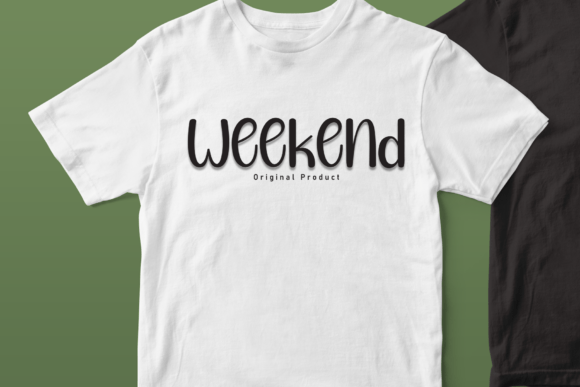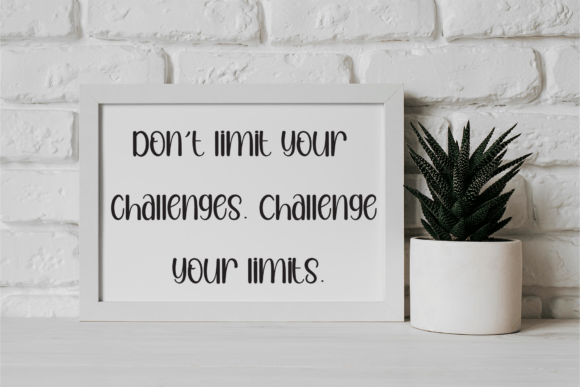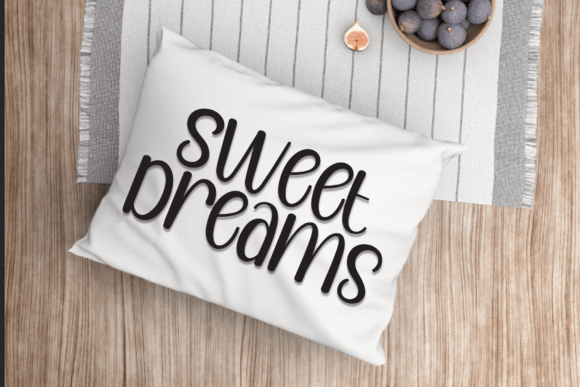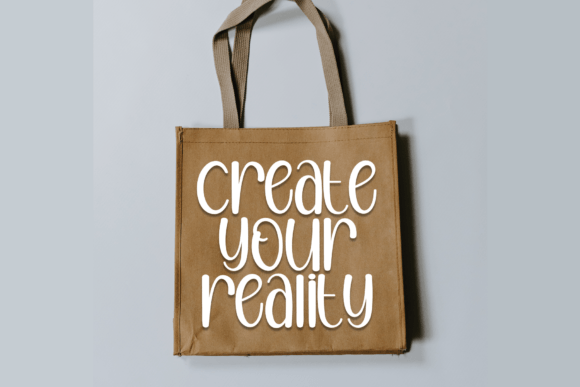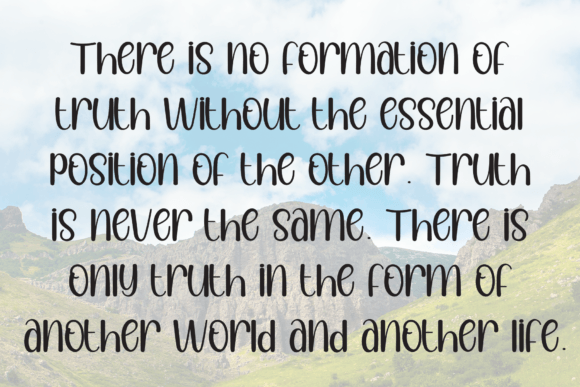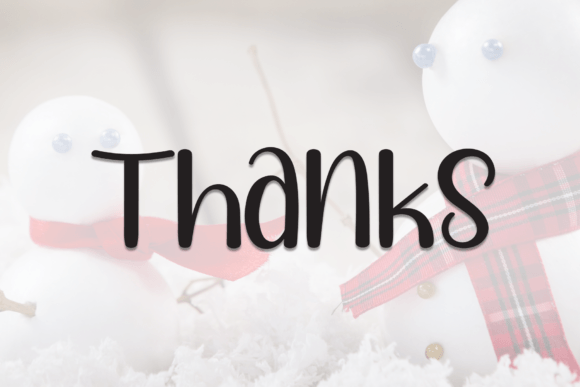
Babyish Snowman Font: A Charmingly Whimsical Handwritten Display Font
Are you looking for a font that can add a touch of friendliness and sweetness to your designs? Look no further than the Babyish Snowman Font! This delightful font is perfect for creating enchanting wedding invitations, endearing cards, and other designs that require a light-hearted touch. In this article, we’ll take a closer look at the Babyish Snowman Font and explore its features, benefits, and uses.
What is Babyish Snowman Font?
The Babyish Snowman Font is a charmingly whimsical handwritten display font that is laced with elements of friendliness and sweetness. Its playful and carefree design makes it perfect for designs that require a touch of warmth and fun. The font is ideal for designers and crafters who want to create designs that are both visually appealing and emotionally engaging.
Features of Babyish Snowman Font
The Babyish Snowman Font has several features that make it a great choice for designers and crafters. Some of its key features include:
- Whimsical Design: The font has a playful and whimsical design that is perfect for creating enchanting wedding invitations, endearing cards, and other designs.
- Handwritten Style: The font has a handwritten style that gives it a personal and emotional touch.
- Friendliness and Sweetness: The font is laced with elements of friendliness and sweetness, making it perfect for designs that require a touch of warmth and fun.
- Light-Hearted Touch: The font has a light-hearted touch that makes it perfect for designs that require a playful and carefree approach.
Benefits of Using Babyish Snowman Font
The Babyish Snowman Font has several benefits that make it a great choice for designers and crafters. Some of its key benefits include:
- Versatile: The font is versatile and can be used for a variety of designs, including wedding invitations, cards, and other projects.
Uses of Babyish Snowman Font
The Babyish Snowman Font has a variety of uses, including:
- Wedding Invitations: The font is perfect for creating enchanting wedding invitations that are both visually appealing and emotionally engaging.
- Cards: The font is ideal for creating endearing cards for special occasions, such as birthdays, anniversaries, and holidays.
- Design Projects: The font can be used for a variety of design projects, including brochures, flyers, and posters.
- Crafting Projects: The font is perfect for crafting projects, such as scrapbooking, journaling, and paper crafting.
Tips for Using Babyish Snowman Font
Here are some tips for using the Babyish Snowman Font:
- Use it for Headings: The font is perfect for headings and titles, adding a touch of whimsy and playfulness to your designs.
- Pair it with Other Fonts: The font can be paired with other fonts to create a unique and visually appealing design.
- Experiment with Colors: The font can be used with a variety of colors to create a design that is both visually appealing and emotionally engaging.
- Use it for Kids’ Projects: The font is perfect for kids’ projects, such as birthday cards, party invitations, and educational materials.
In conclusion, the Babyish Snowman Font is a charmingly whimsical handwritten display font that is perfect for designers and crafters who want to add a touch of friendliness and sweetness to their designs. Its playful and carefree design makes it ideal for creating enchanting wedding invitations, endearing cards, and other designs that require a light-hearted touch. With its ease of use, versatility, and cost-effectiveness, the Babyish Snowman Font is a great choice for anyone looking to elevate their design aesthetics.